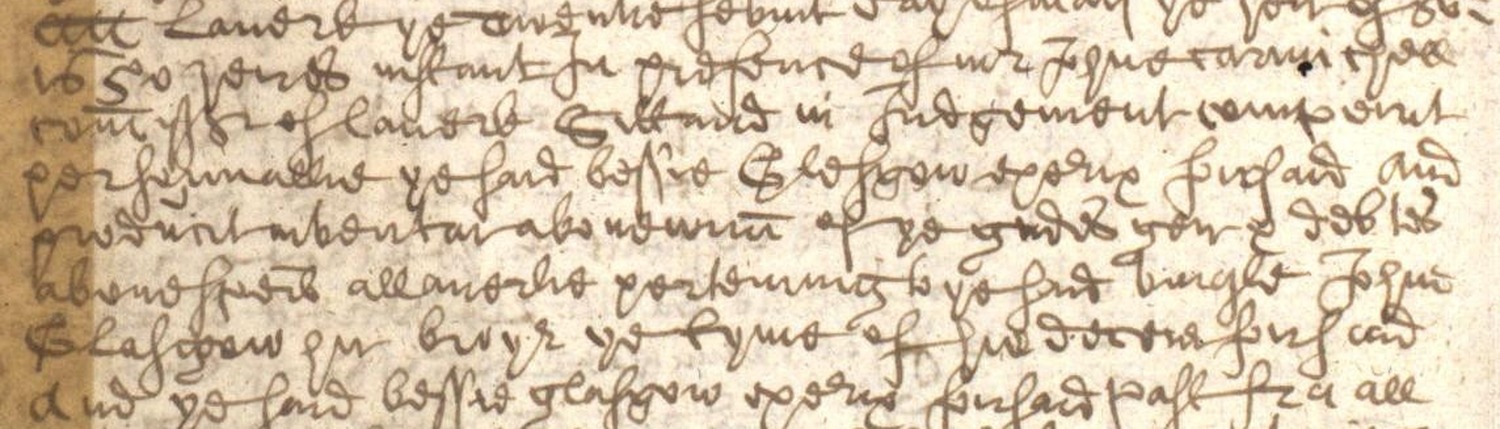
The surviving confirmation names Bessie twice and calls John her brother. Enlarging the repeated names and the split-line brother clause shows which strokes carry that reading. The missing preceding image prevents a full estate reconstruction, but the surviving kinship phrase can be assessed directly.
New to secretary hand? Start with the shapes.
Follow the writing line. Ascenders rise above small letters; descenders fall below them. A neighbouring line can cross the word you are reading.
Count the short strokes. These are called minims. Joined i, m, n and u shapes can be ambiguous; compare a clear repeated word by the same clerk rather than guessing from a modern alphabet.
Separate reading from expansion. A contraction is not a fully written modern word. Square brackets retain doubtful letters or editorial additions. A familiar legal formula is a clue, not permission to fill a gap.
Then assess the relationship. Reading a name securely is not the same as proving kinship. Look for the actual role words and who they refer to.
Choose a name or relationship below. Compare the original ink, a paper-free view and the same spelling in a secretary-hand teaching font. Open the reasoning only when you need it.
01Visible ascenders in the sibling clauseInspect reading
Proposed readinghir brother
The walkthrough reads the phrase directly after the line-broken John Glasgow entry; this annotation does not extend it to parents or other siblings.
01 Original word Untouched manuscript02 Ink on white Derived from the original pixels
03 Same spelling, another hand Joscelyn teaching font
The white-background view suppresses paper colour; reviewed focus boundaries exclude separable neighbouring fragments where available. It does not restore missing strokes. Colour follows retained source pixels inside proposed letter groups, not a reconstructed pen path. Ambiguous crossings remain neutral where reviewed; other crossing ink may still belong to another line.
The font repeats the proposed spelling, not this clerk's handwriting. Similarity is a teaching aid, not confirmation; uncertainties remain in the reading above.
Locate the word in its passage Original contextThe walkthrough reads the phrase directly after the line-broken John Glasgow entry; this annotation does not extend it to parents or other siblings.Reading, meaning and uncertainty
Expansion: her brother
Confidence: high for the two-word kin phrase
Evidence boundary: The visible h and b ascenders support the existing literal reading hir brother; the annotation does not add a genealogical conclusion beyond that phrase.
... Bessie Glasgow ... executrix dative to the said umq[uhi]le Jon / Glasgow hir brother ...
In modern English
Bessie Glasgow is executor dative of the late John Glasgow, her brother.
How to read it
Bessie Glasgow appears before the office executrix dative. The deceased's forename Jon is near the right end of that line; Glasgow begins the next and is immediately followed by hir brother. Hir is the visible Scots form of her. Reading across the line break therefore identifies John as Bessie's brother independently of her legal office as executor dative.
What this establishes
Bessie is John's sister, independently of being his executor.
What it does not establish
This does not identify their parents, Bessie's spouse or any additional siblings.
High for the combined name and brother clause; some intervening legal wording is unresolved.
Slow reading
Inspect the words, not just the conclusion.
Compare the original strokes with the proposed reading. Tall or trailing strokes from neighbouring lines may enter a sample; the notes distinguish what is visible from what remains uncertain.
Phrase 01
Bessie Glasgow
Magnified from the same manuscript image. No letters have been redrawn.
Look at the strokes
The capital B has two open lobes and is much taller than the following letters.
Bessie contains a close double-s sequence before the dotted i and terminal e.
Glasgow begins with a looped capital G and includes a lower g loop below the baseline.
The surname's final ow runs into a light exit stroke before the legal wording.
Compare in this hand: Bessie Glasgow is written again in the confirmation step, providing a same-page comparison for both capitals and the double-s sequence.
Reading limits: The name is clear; this first name box alone does not state the sibling relationship.
Phrase 02
Jon
John
Magnified from the same manuscript image. No letters have been redrawn.
Look at the strokes
The capital J has a tall entry and a long descending stroke below the small letters.